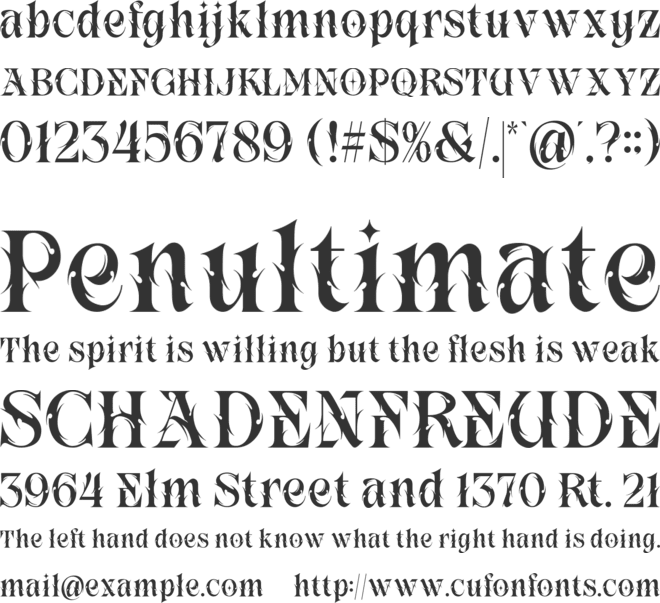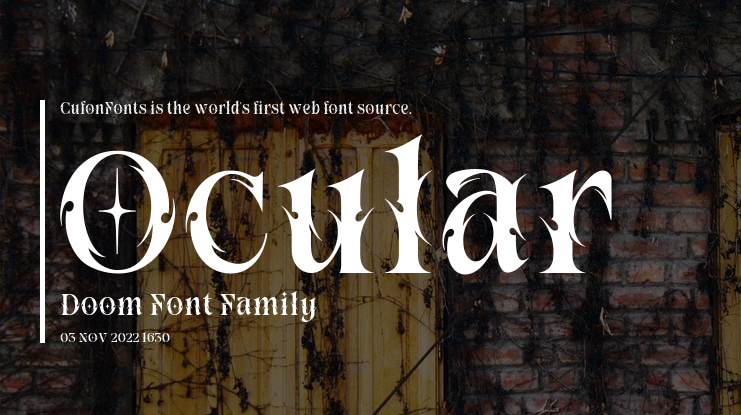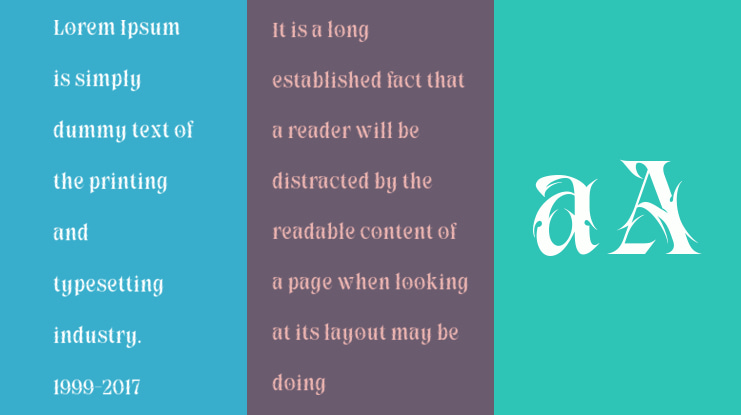
Ocular Doom Font
Introducing Ocular Doom – A Typeface That Stares Back
Dive into the abyss with Ocular Doom, a chilling new display typeface straight from the creative crypts of Alit Design Studio. This font is not merely seen; it is felt. It channels the spirit of gothic horror, blackletter traditions, and occult mysticism into every sharp, angular character.